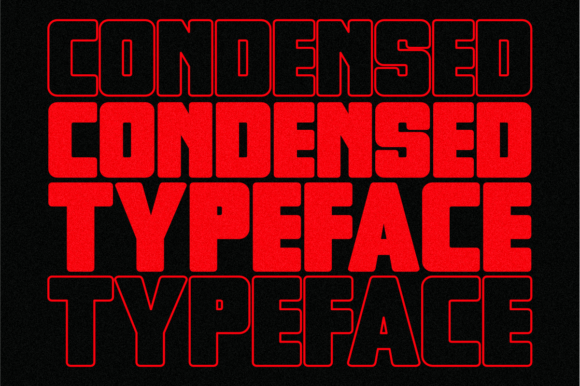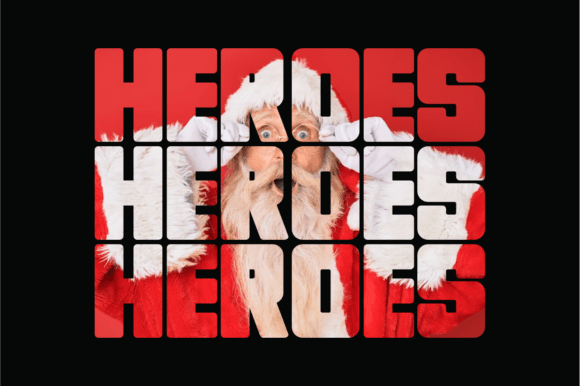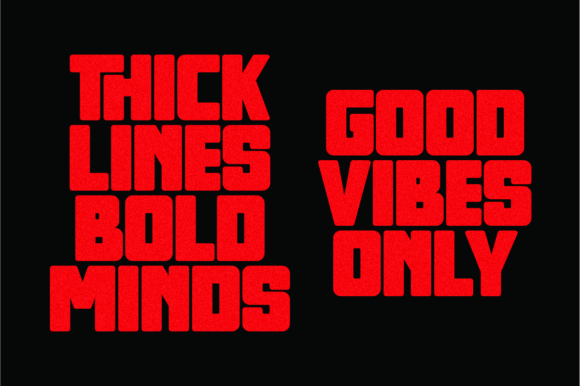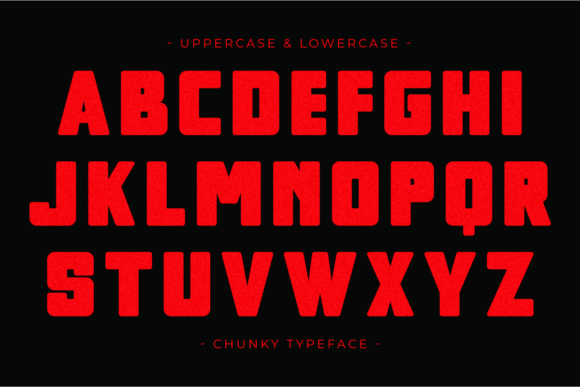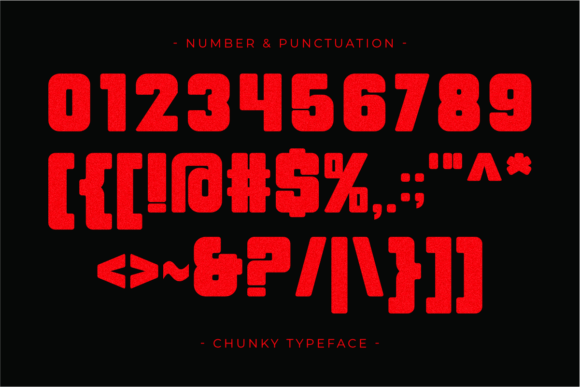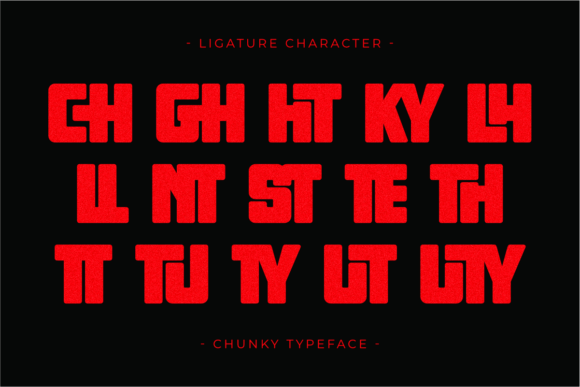
Unleashing Impact: The Power of Chunky Font
Remember the moment when you first saw a sports team’s logo or a bold streetwear advertisement that made you stop and take notice? That instant rush of excitement often comes down to the typography used – and in many cases, it’s the Chunky Font that steals the show. This ultra-thick, blocky Sans Serif font is designed to dominate any design layout, leaving a lasting impression on viewers.
Whether you’re a seasoned designer or just starting out, the Chunky Font is an invaluable tool in your arsenal. Its unique blend of aggressive weight and clean, contemporary aesthetic makes it the ultimate choice for high-energy projects that demand maximum visibility. With its all-caps structure, this font ensures a strong, recognizable visual identity that’s perfect for logos, posters, and digital media projects.
Key Features of Chunky Font
- Font Family: Chunky Font is a sans-serif font family, designed to be bold and eye-catching.
- Unique Characteristics: Chunky Font is known for its bold, chunky strokes and rounded edges, making it ideal for use in headings, titles, and other display typography.
Chunky Font Review
Chunky Font is a display font that’s perfect for making a statement. ✨ Its bold and playful style makes it great for headings, titles, and other large-scale text. I’ve used it in a few projects, and it always adds a touch of personality to the design.
- ✨ Chunky Font is super bold and eye-catching, making it perfect for grabbing attention.
- ✨ It’s highly customizable, so you can adjust the weight, spacing, and other settings to fit your design needs.
- ✨ The font is available in a range of weights, from light to heavy, giving you plenty of options for creating contrast and visual interest.
However, there are a few limitations:
- ⚠️ The font can be overwhelming if used in large quantities, so be careful not to overdo it.
- ⚠️ Chunky Font may not be the best choice for body text or small-scale text, as it can be difficult to read.
Overall, I think Chunky Font is a great addition to any designer’s toolkit. It’s perfect for making a statement or adding a touch of personality to a design. Just be sure to use it judiciously, and you’ll be golden.
Chunky Font is perfect for creating eye-catching headlines, titles, and logos. Use it to add a playful touch to your designs and make your text stand out.
Some common use cases for Chunky Font include:
- Creating a fun and playful brand identity.
- Designing a retro-themed poster or flyer.
- Adding a decorative touch to a wedding invitation or birthday card.